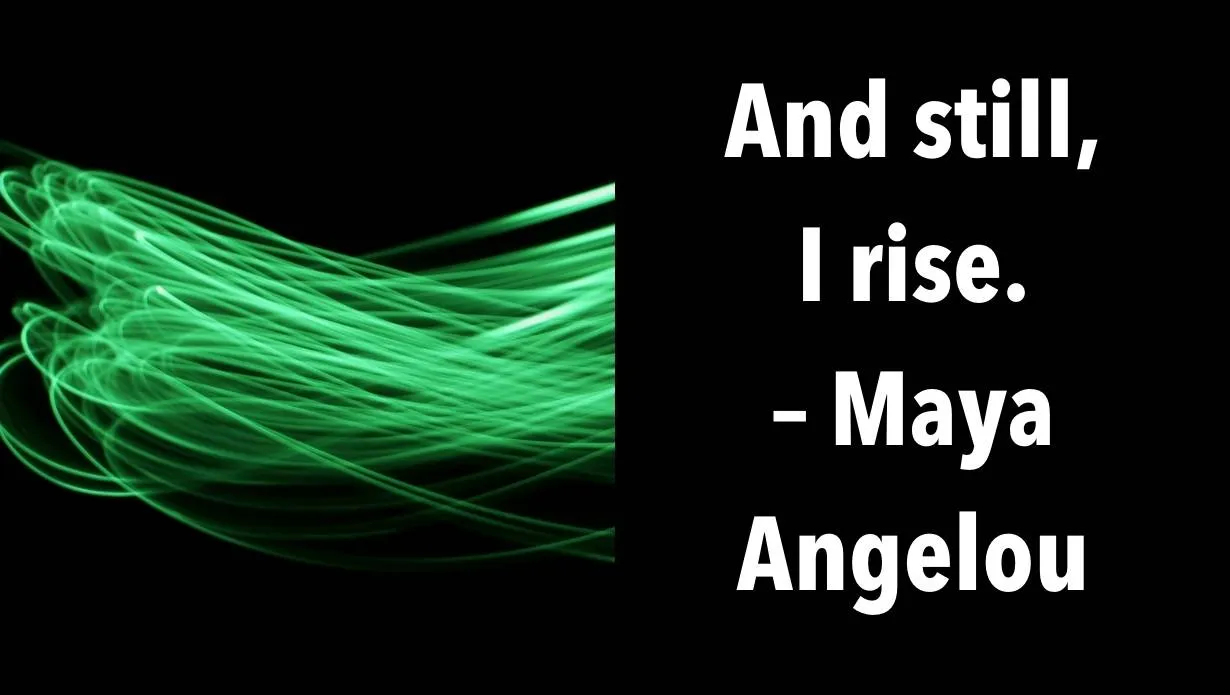
Snapchat Font is developed by Adrian Frutiger. This stunning font belongs to the Sans-Serif typeface. It has a modern and stylish look that makes it perfect for headlines, logos, and other creative designs. It was released in the year 2011.
Snapchat Font Family
| Name | Snapchat Font |
| Designer | Adrian Frutiger |
| Style | Sans seirf |